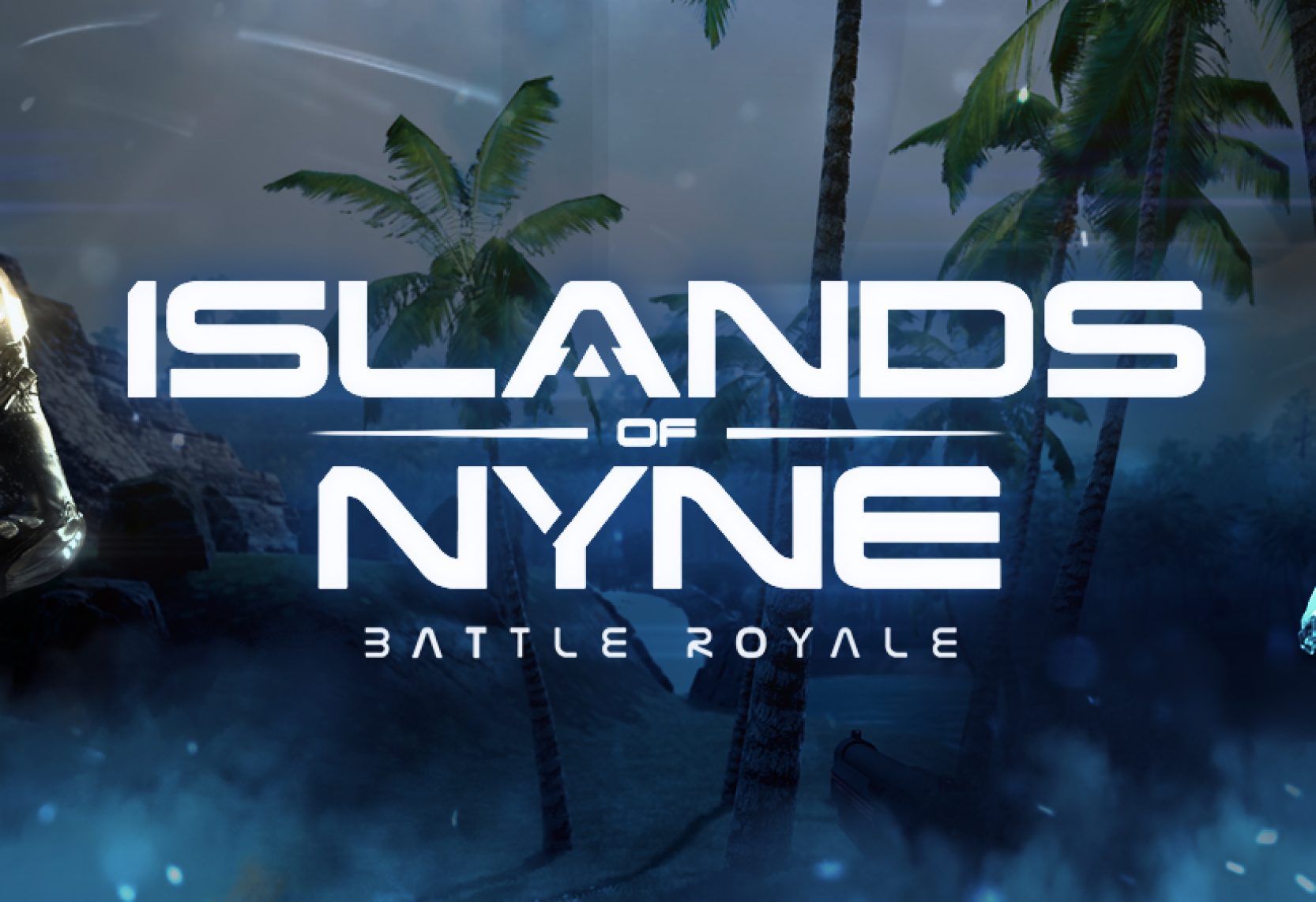
Islands of Nyne Font
Fonts in UseIslands of Nyne: Battle Royale is a first-person shooter battle royale game where players fight to be the last one standing on a deserted alien planet. The game features a sci-fi theme and is created by Define Human Studios for Microsoft’s Windows.
The video game's logo appears to have been altered from Ray Larabie's Korataki font, drawing on the square, industrial letterforms reminiscent of M. Mitchell's 1975 futuristic classic, China. You may view and learn more about the font here.